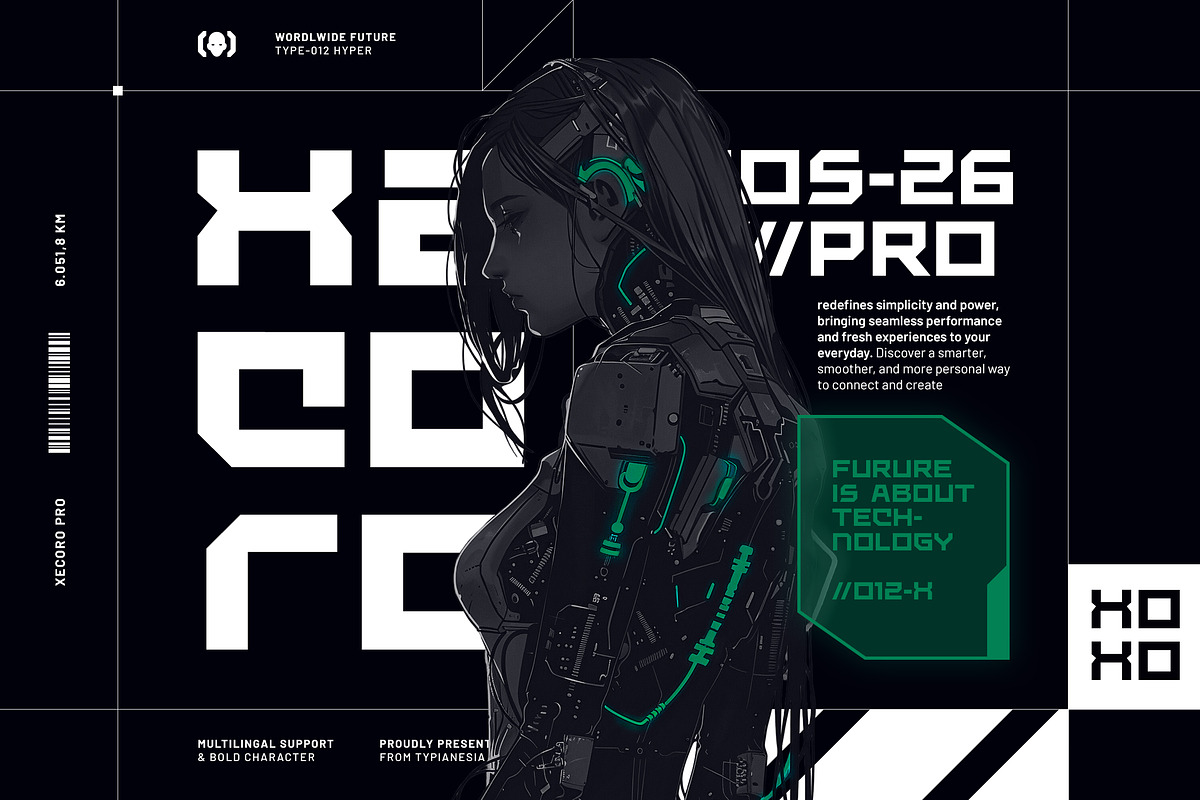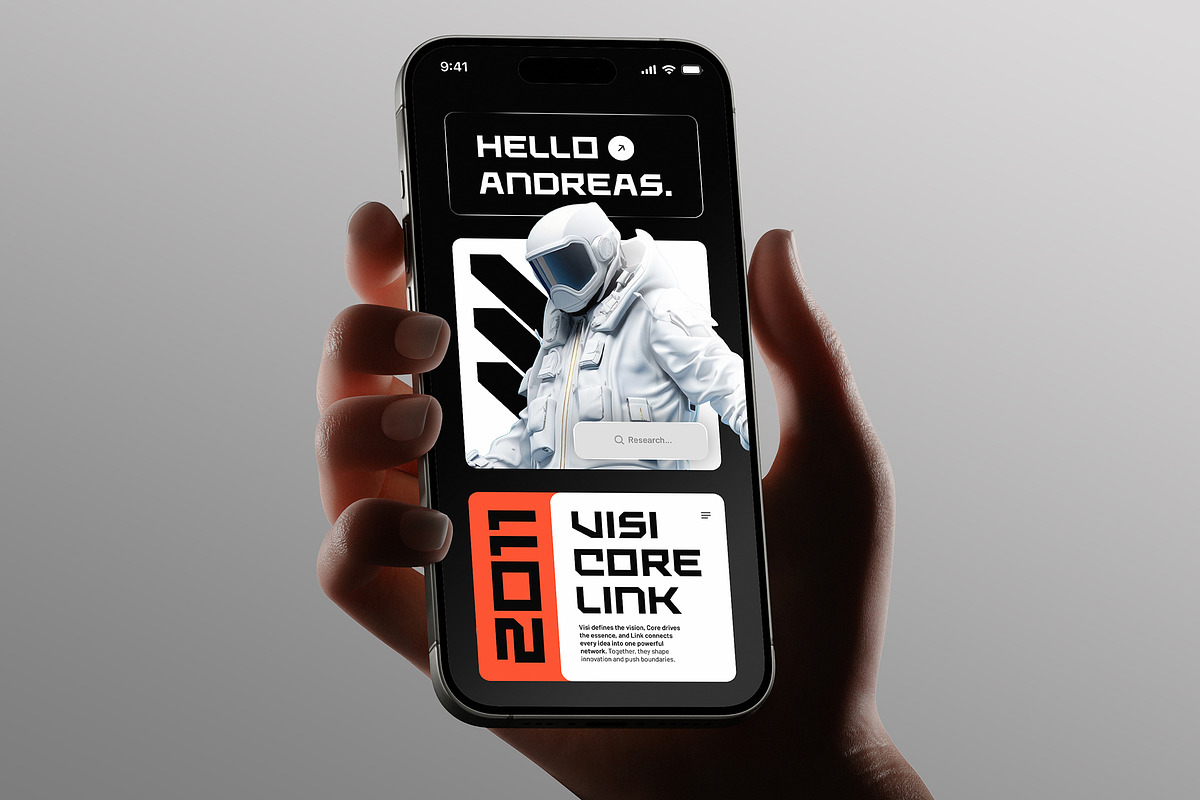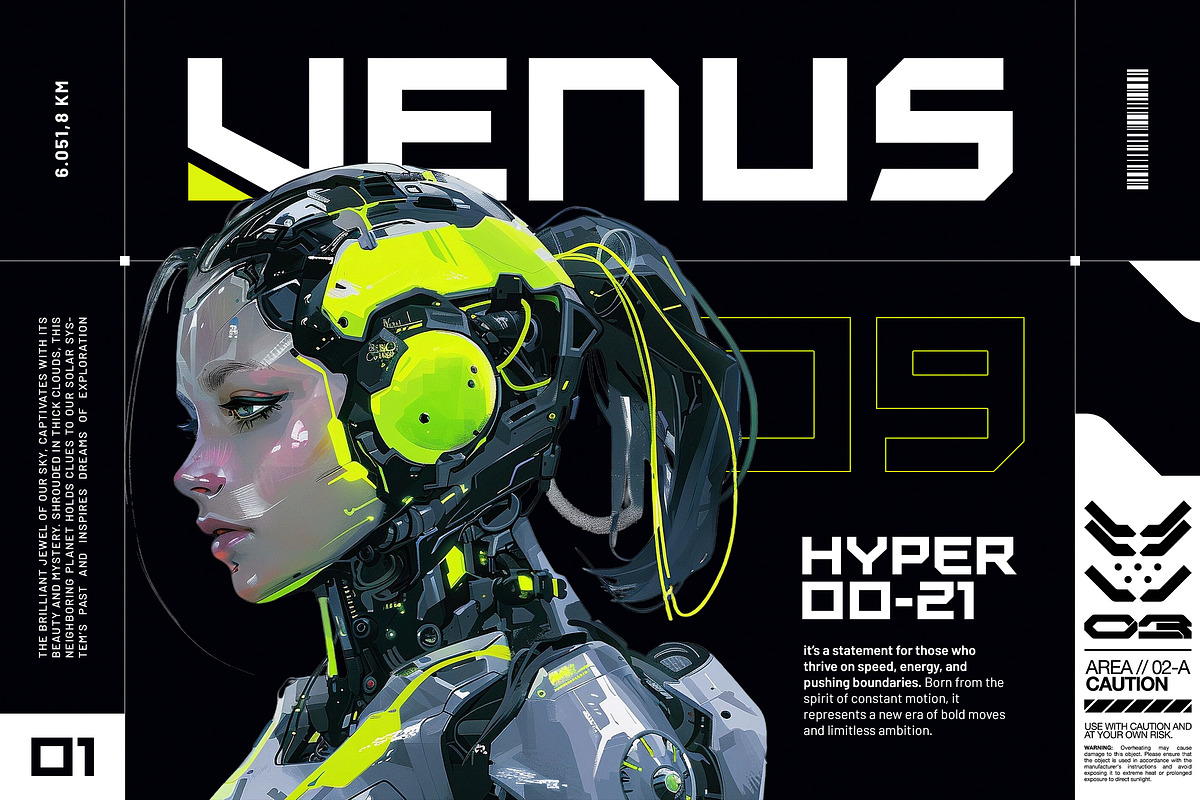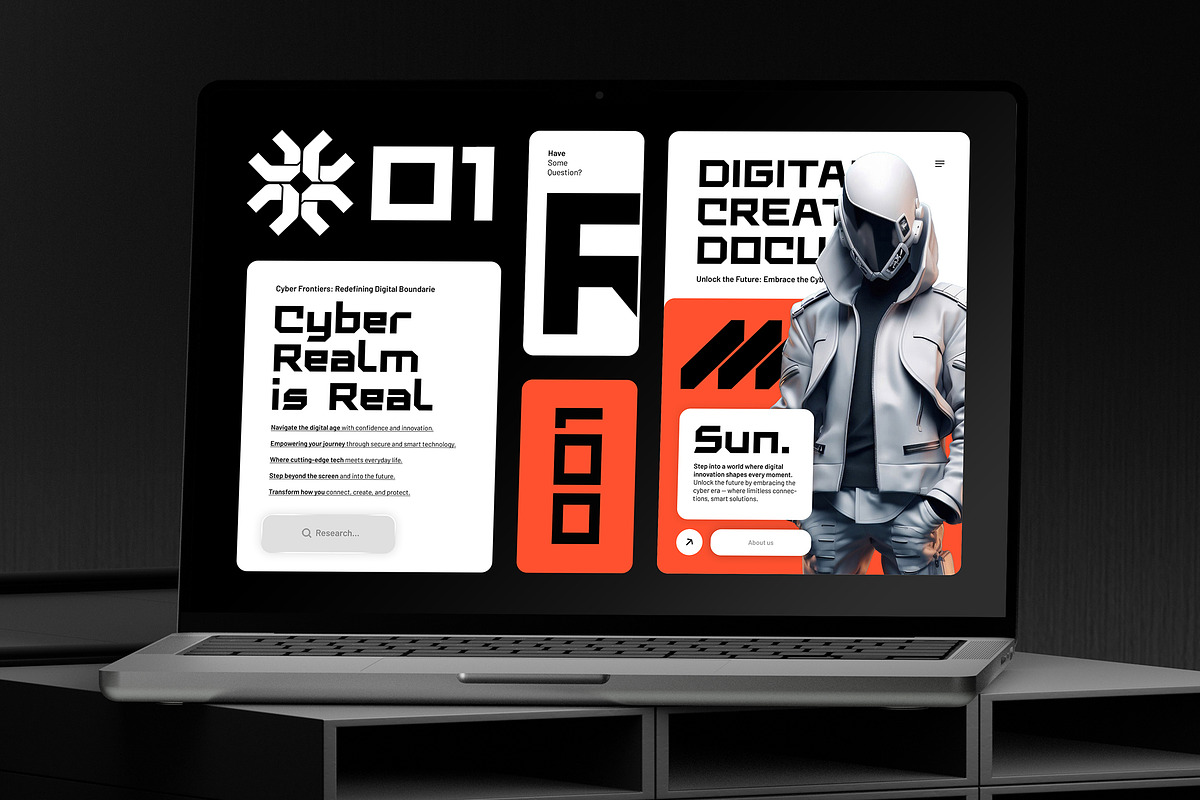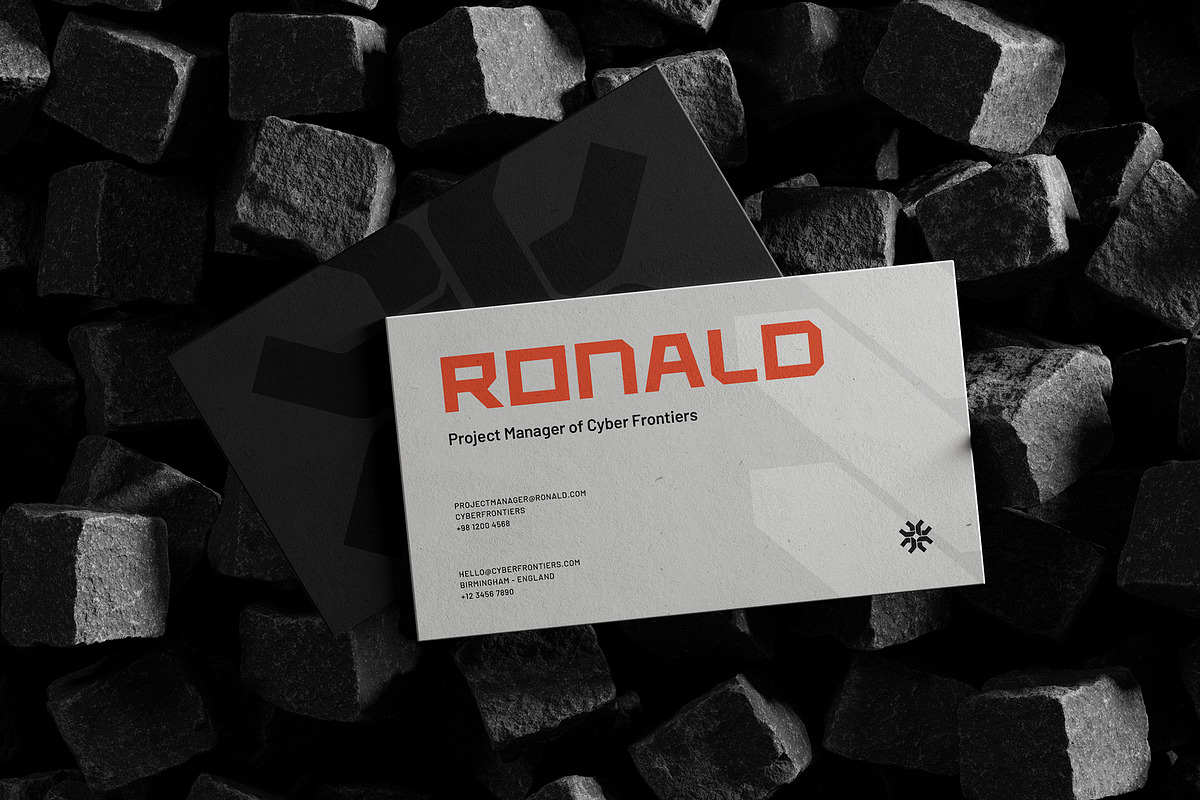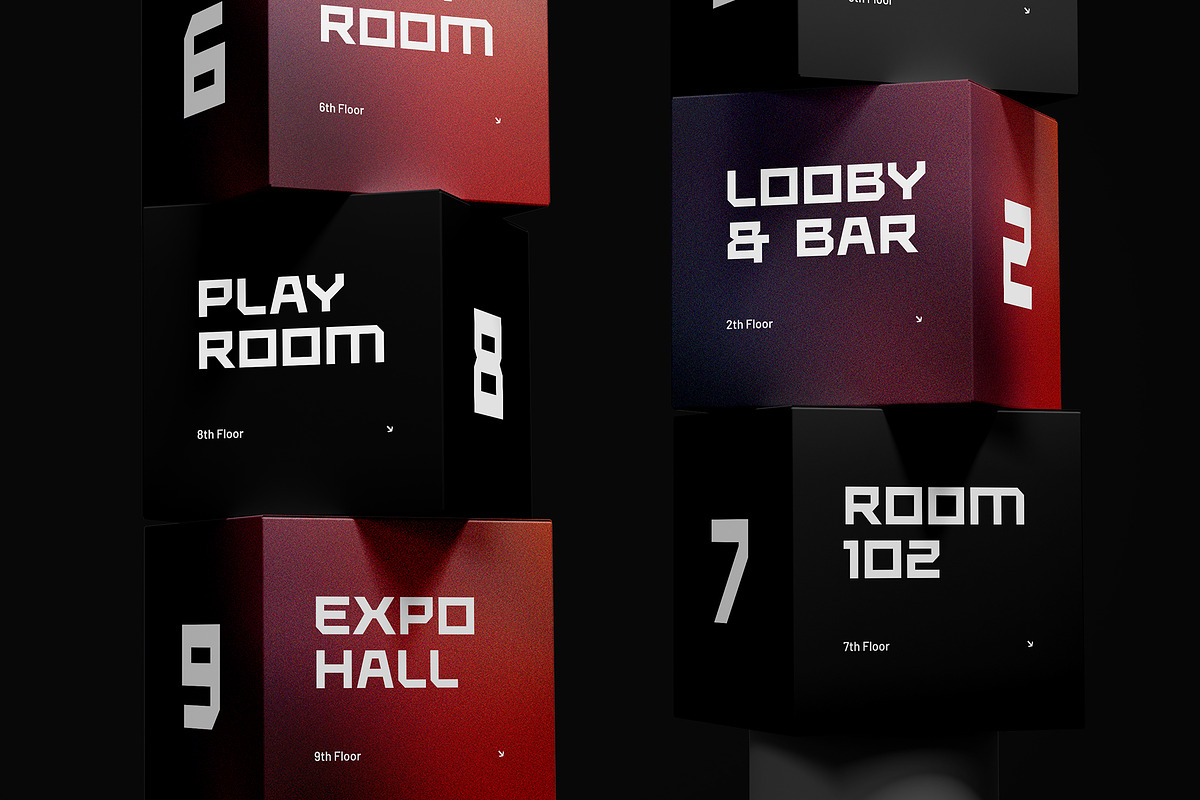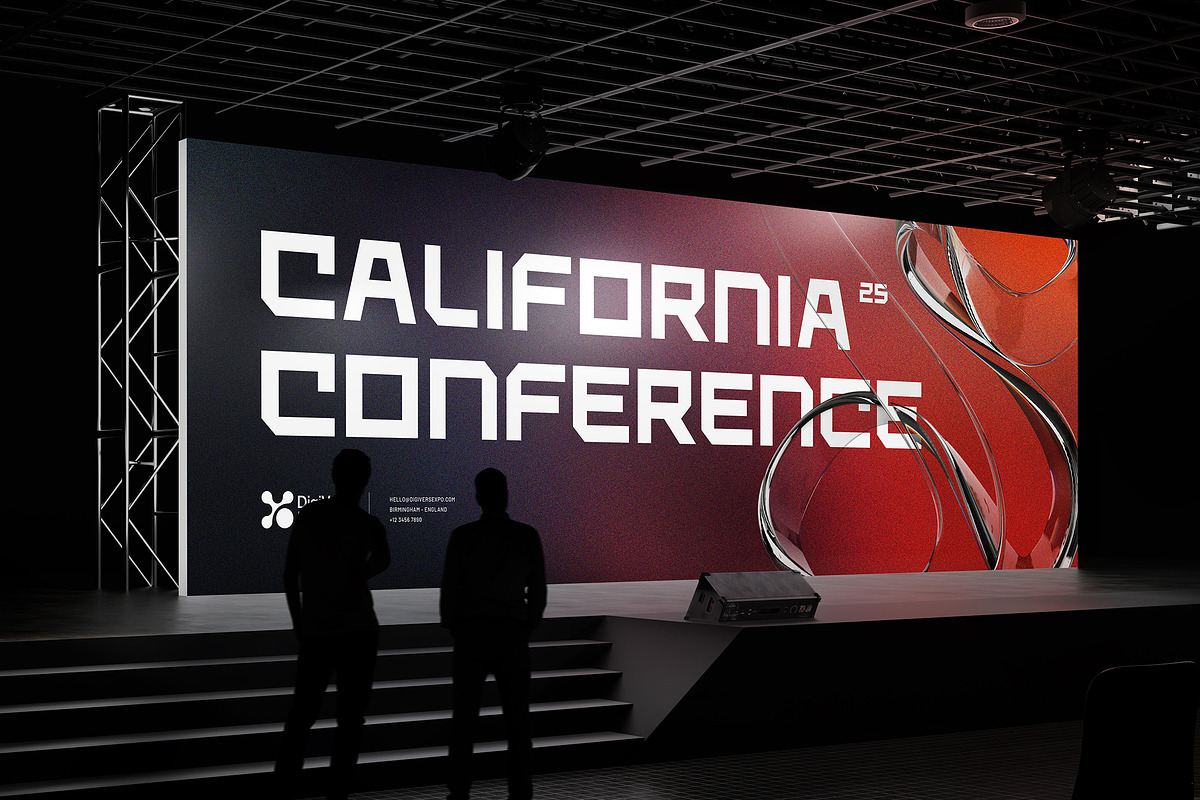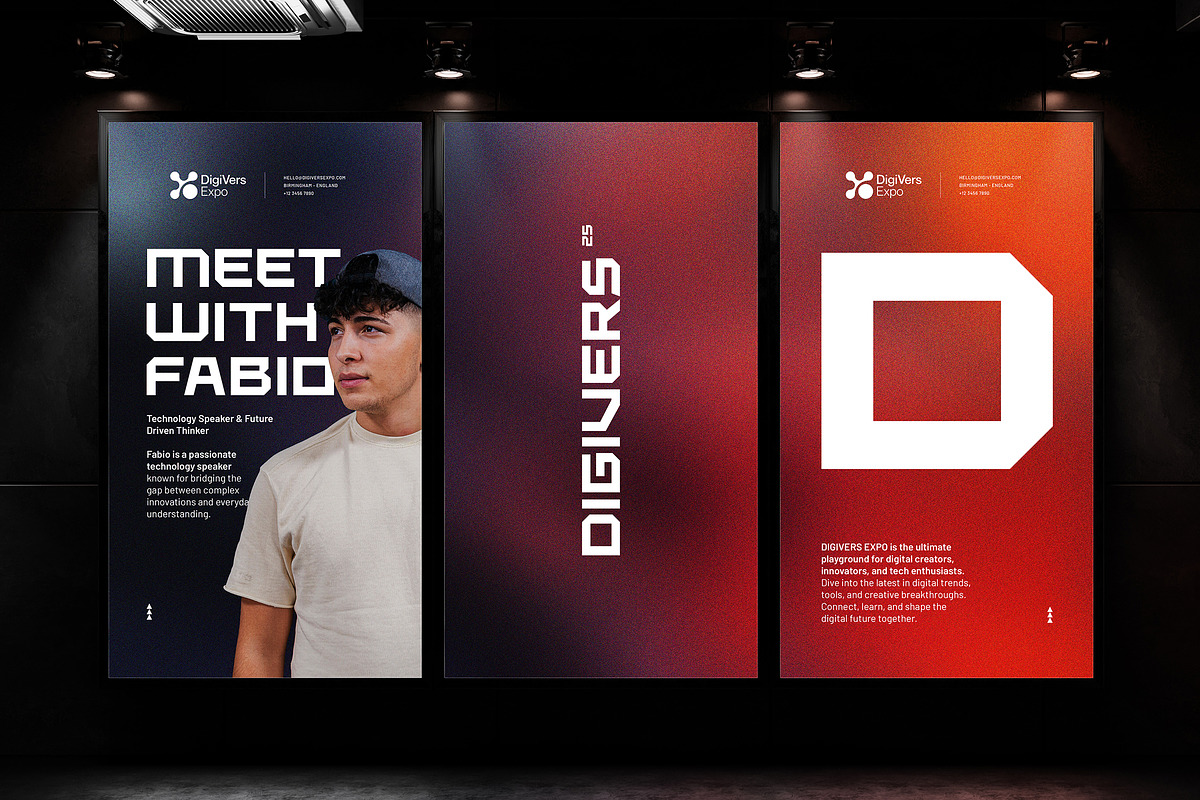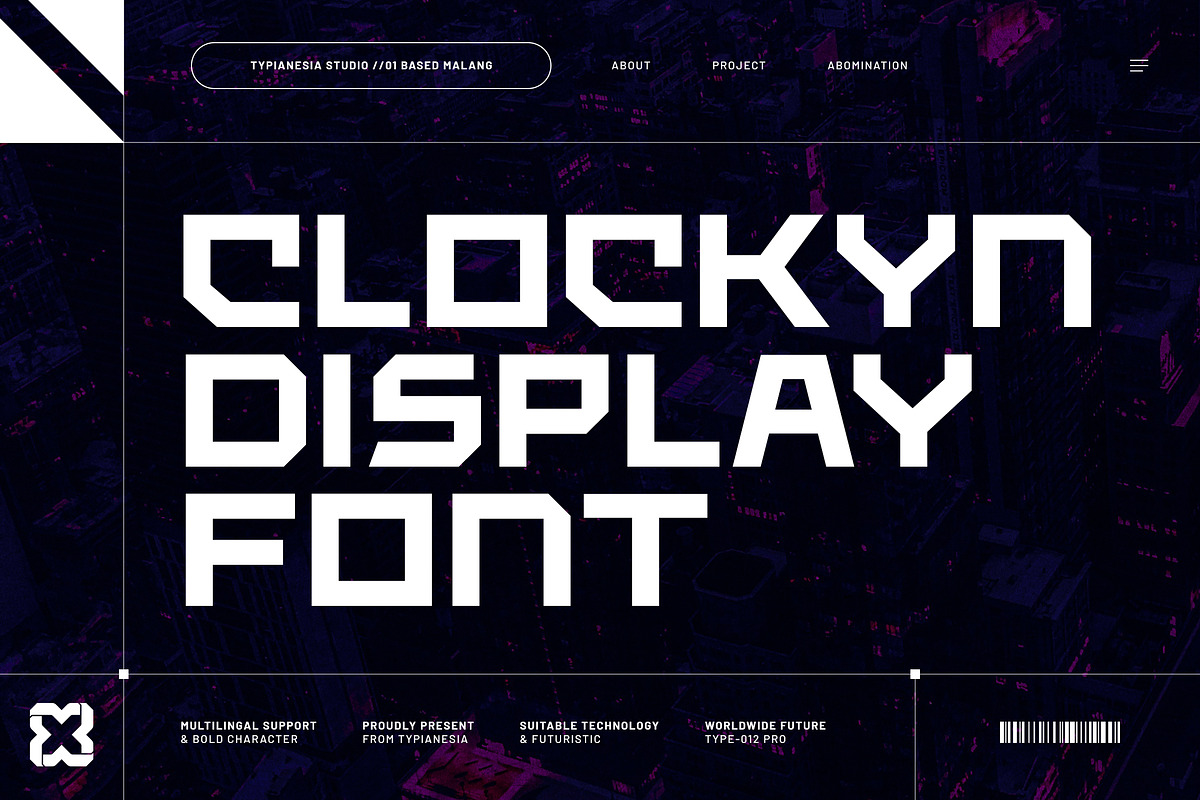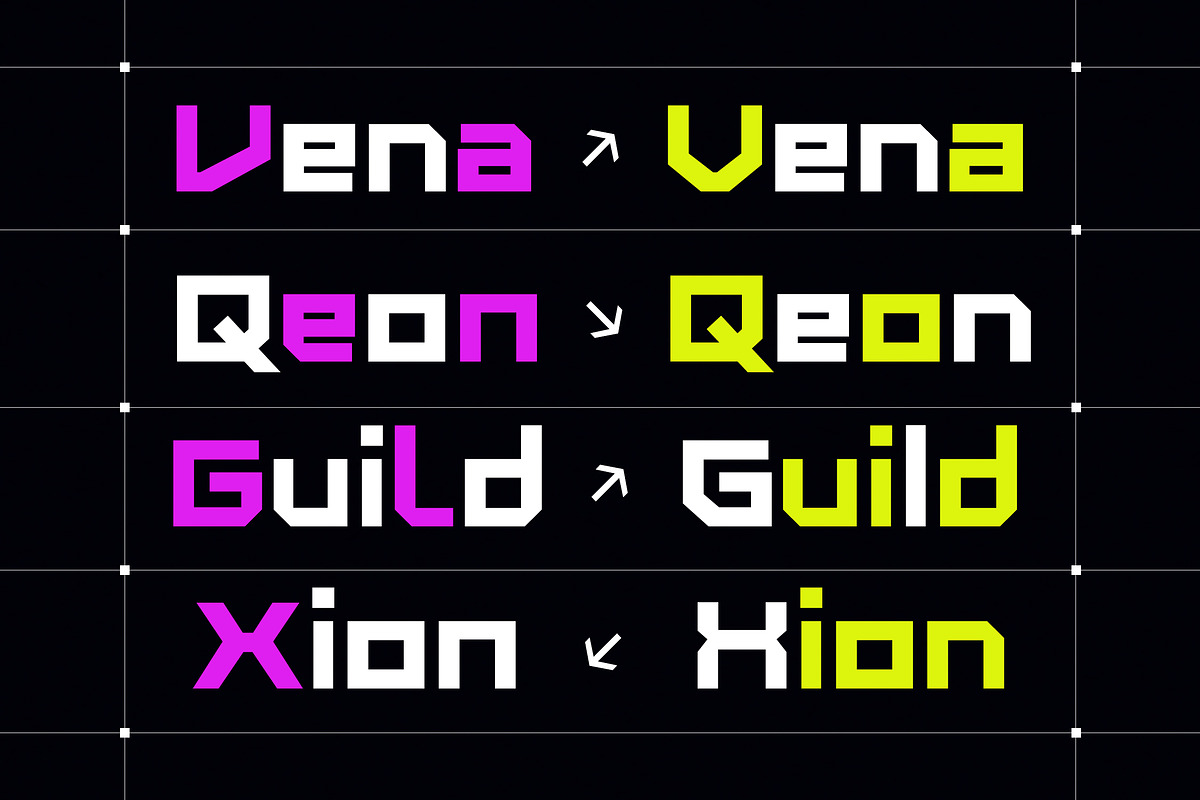
Clockyn - Futuristic & Bold Expanded
Clockyn - Futuristic & Bold Expanded Typeface - Modern Digital Game Tech Innovation Display
Clockyn Display Font is a powerful and futuristic typeface, specifically designed to project a modern and technological image. With its bold and geometric characters, this font is ideal for various digital applications such as website design, sci-fi, cyberpunk, branding, posters, game titles, esports themes, advertising campaigns, digital technology, logos, and any project that requires an eye-catching appearance, offers multilingual support and solid characters, making it a versatile choice for projects in the digital era. Its "blocky" and assertive presence ensures your message is conveyed clearly and memorably.